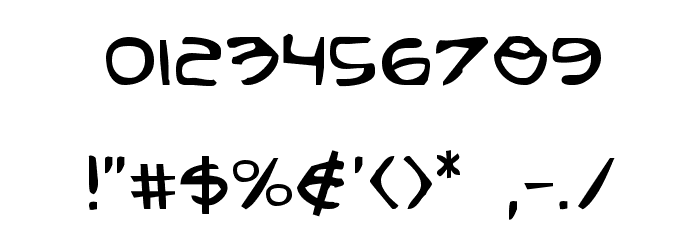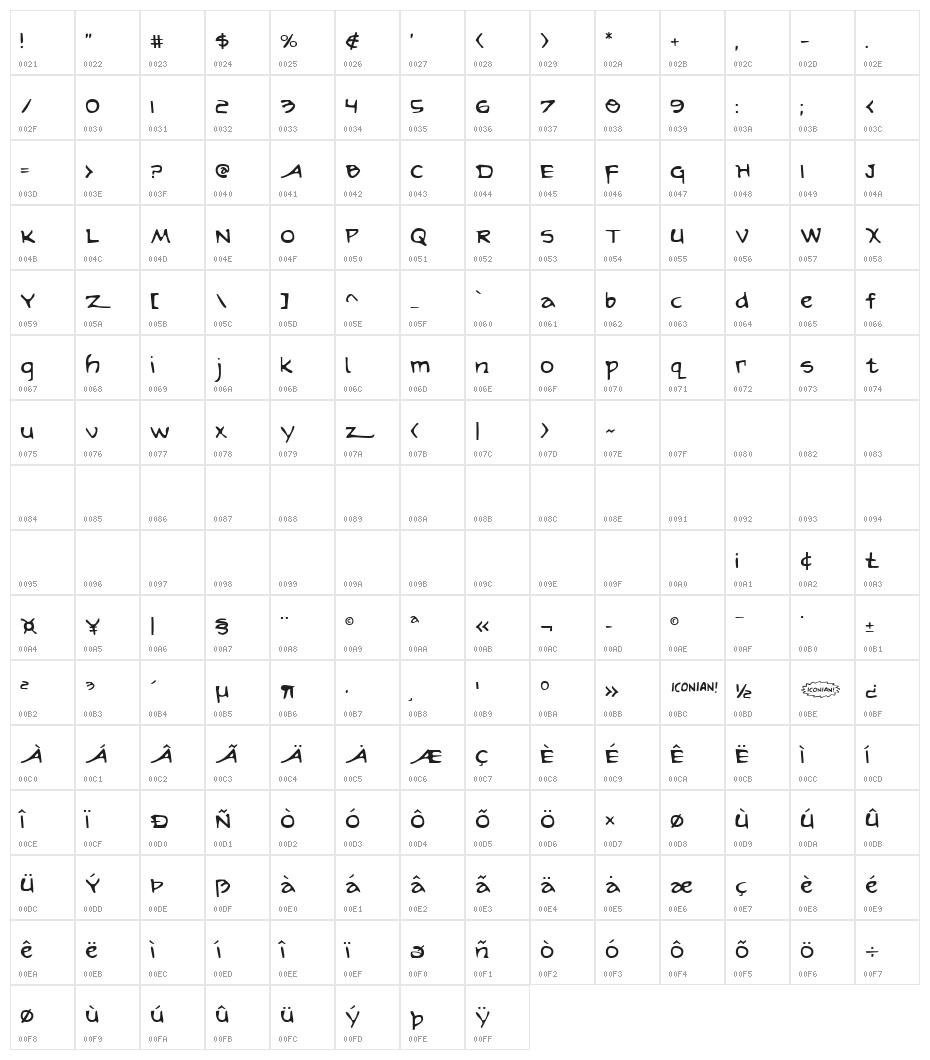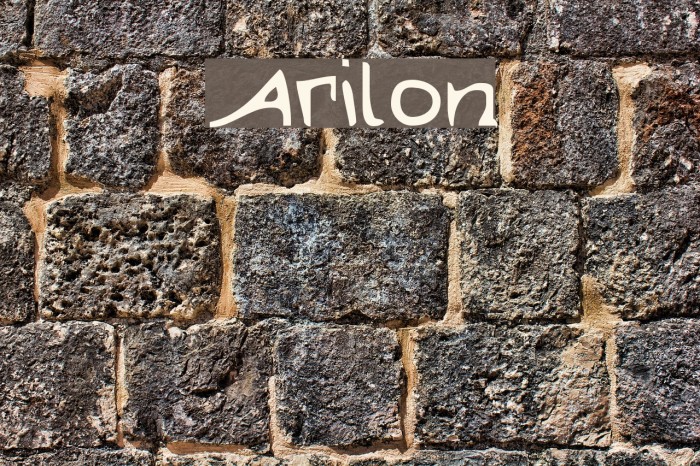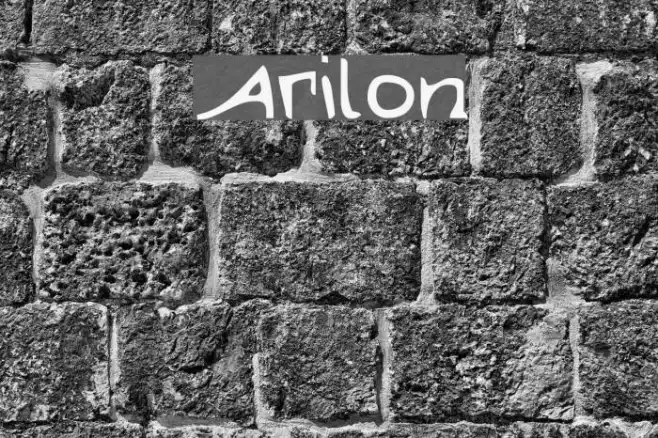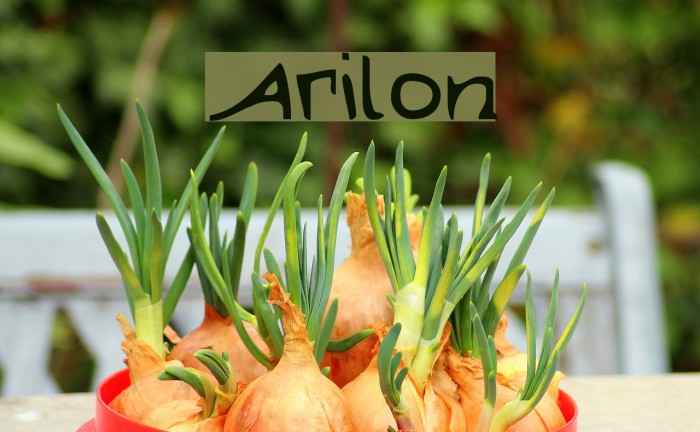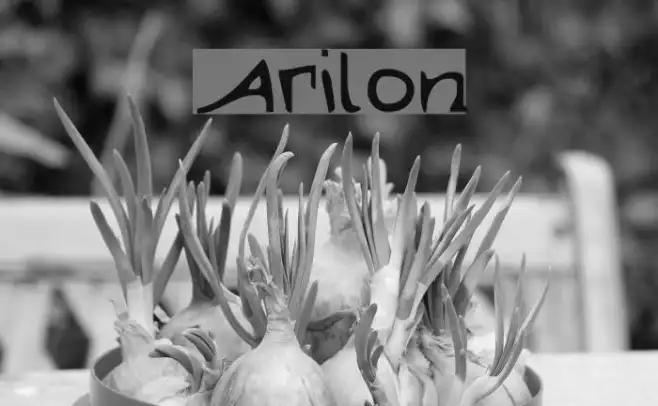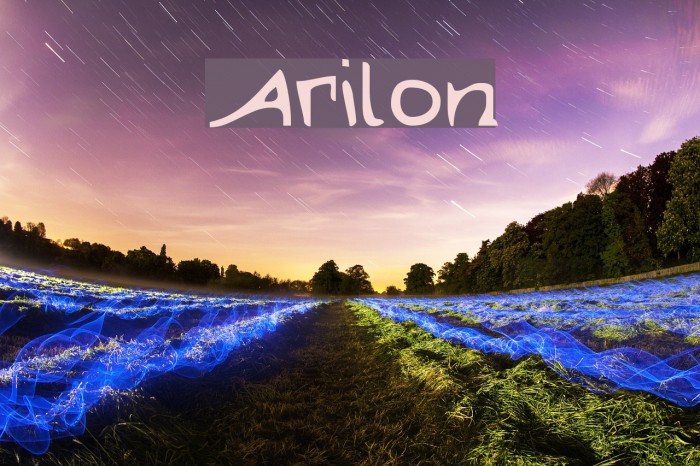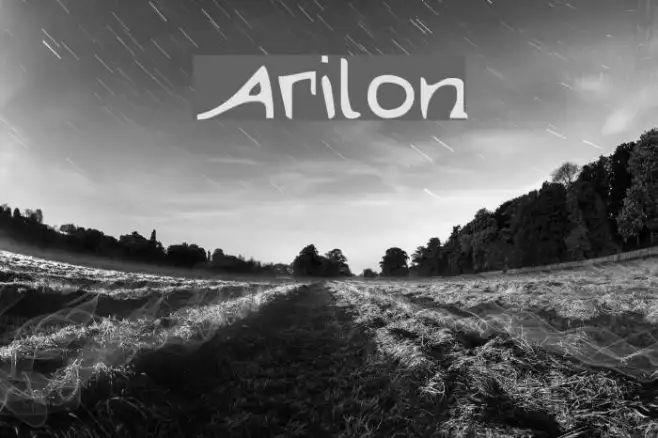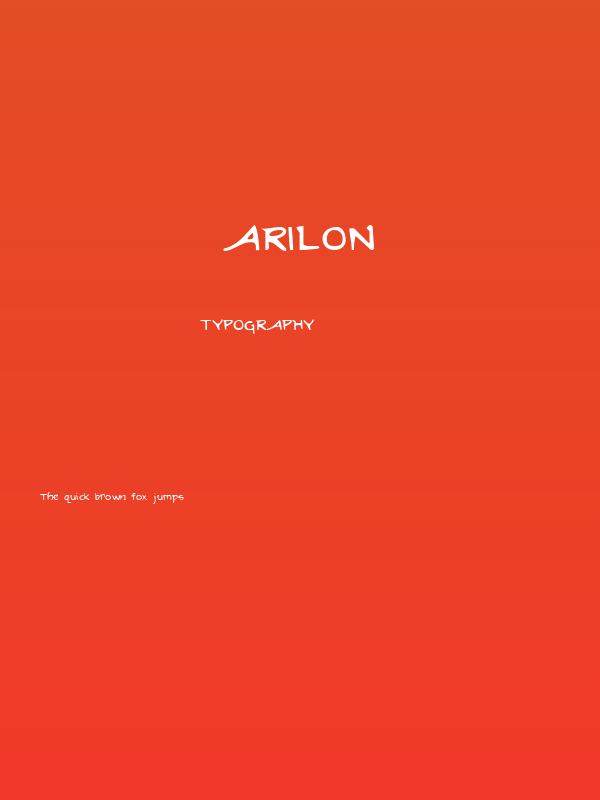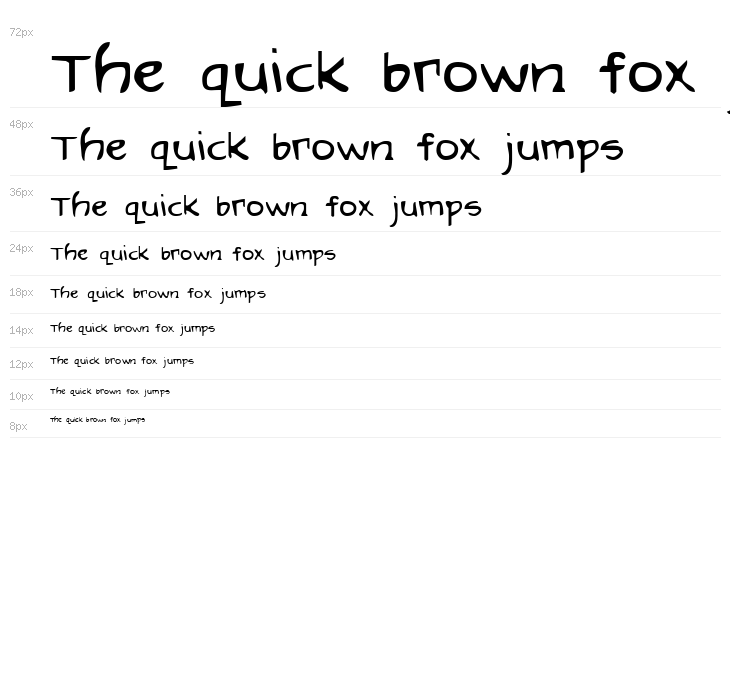
Arilon Font
Arilon Description
This font exhibits a playful and dynamic style, characterized by its irregular, hand-drawn appearance. The letters have a whimsical, slightly uneven quality, with varying stroke widths that add a sense of movement and energy. The uppercase letters are bold and distinctive, while the lowercase letters maintain a consistent flow. Numbers and special characters are crafted with the same lively spirit, making them stand out. The overall design is informal and artistic, suitable for projects that require a touch of creativity and fun.
| Proposed Projects | Ideal for children's books, creative posters, playful branding, and artistic invitations. |